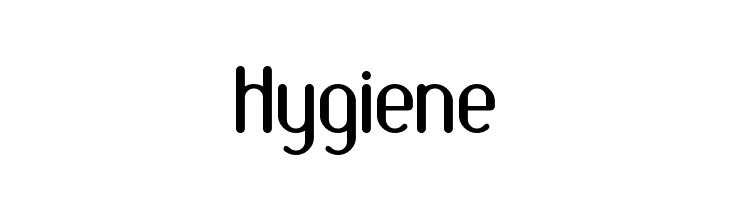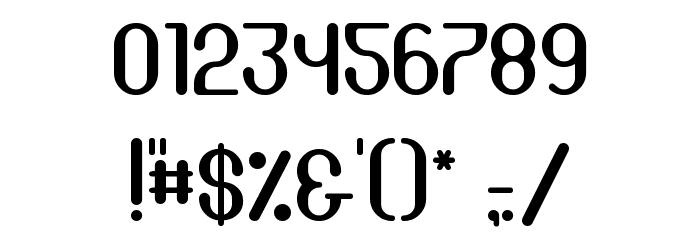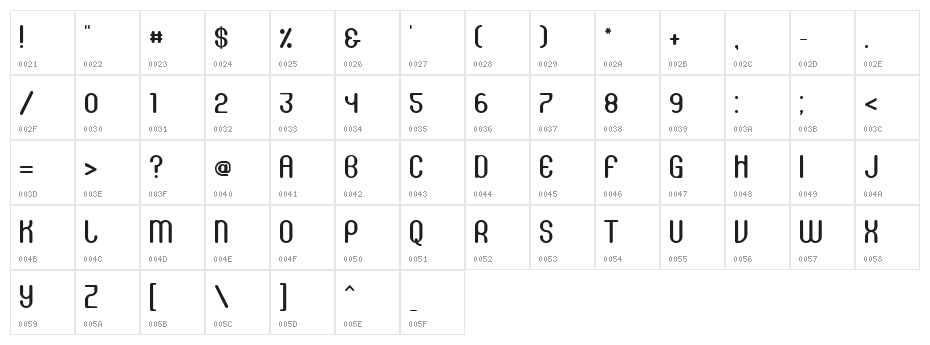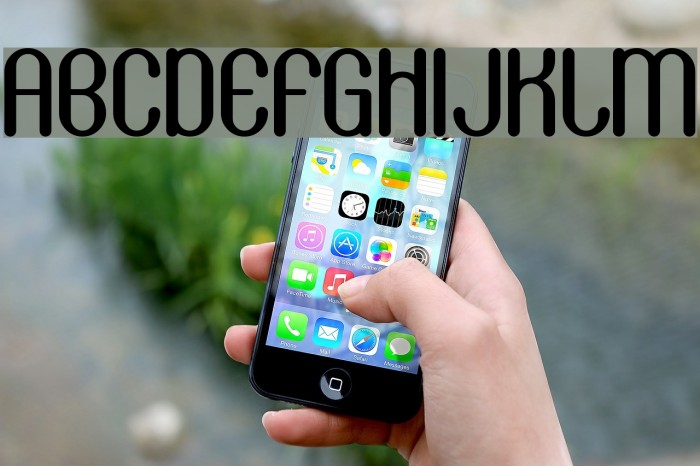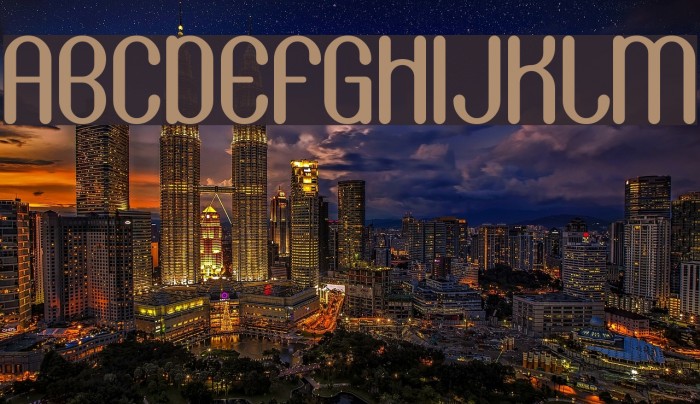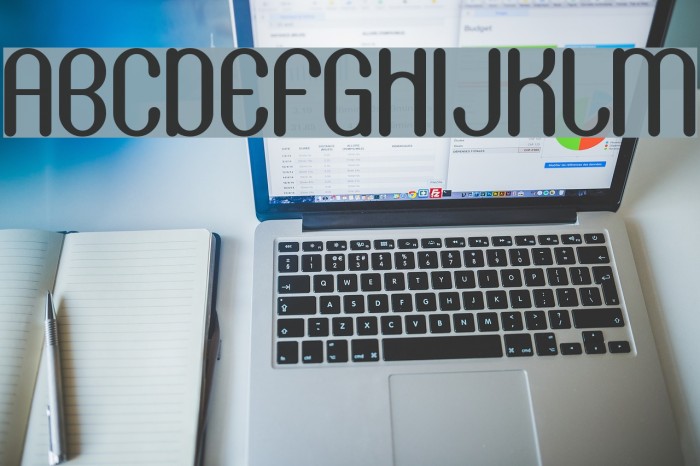
Hygiene Font
Hygiene Description
This font features a modern and sleek design with rounded edges and a uniform stroke width. The characters are well-balanced, providing a clean and contemporary look. The uppercase letters are slightly taller than the lowercase, maintaining a consistent visual flow. Numbers are clear and easy to read, while special characters are distinct and well-integrated. The overall appearance is minimalistic yet stylish, making it suitable for a variety of design applications.
| Proposed Projects | Ideal for branding, digital interfaces, packaging, and modern advertising campaigns. |